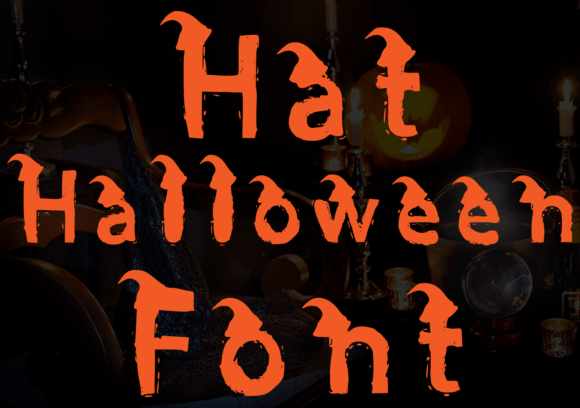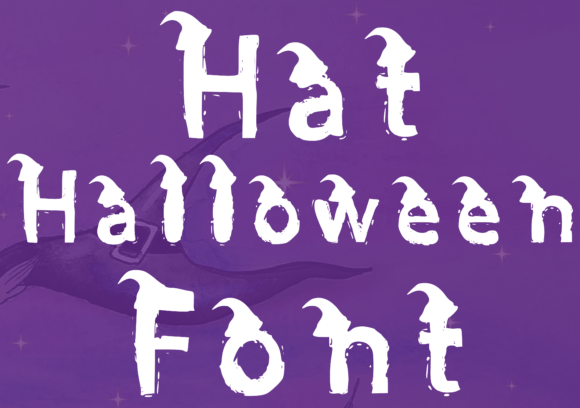
Introduction to Hat Halloween Font
As I was rummaging through my old Halloween decorations, I stumbled upon a faded witch hat that instantly sparked my creativity. I began to imagine how this whimsical hat could be reimagined as a font, and that’s exactly what inspired me to dive into the world of typography and create the Hat Halloween Font. This new font is a unique blend of Halloween spirit and high-quality design, making it a valuable addition to any designer’s toolkit.
Whether you’re working on a creative project that requires a festive touch or simply want to add some personality to your designs, the Hat Halloween Font is an excellent resource to have. Its transparent background and versatility make it perfect for a wide range of applications, from wedding invitations to Christmas cards. And the best part? It’s available for free download, making it an accessible design resource for designers of all levels.
With its cute yet sophisticated design, the Hat Halloween Font is sure to bring a smile to your face and elevate your designs to the next level. So why settle for a generic font when you can add a dash of Halloween magic to your work? Download the Hat Halloween Font today and get ready to unleash your creativity!
Key Features of Hat Halloween Font
- High-quality, hand-drawn design perfect for creative projects
- Perfect for Halloween-themed designs, parties, and events
Honest Review: Hat Halloween Font
I recently stumbled upon the Hat Halloween Font, and I must say, it’s a delightful addition to any creative project. As a designer, I appreciate high-quality fonts that can elevate the aesthetic of my designs. This font definitely delivers.
- ✨ The font is highly customizable, allowing you to adjust the colors and transparency to suit your design needs.
- ✨ The transparent background makes it easy to layer the font over other design elements without any visual clutter.
- ⚠️ The font is only suitable for Halloween-themed projects or designs that require a spooky, playful vibe. It may not be the best choice for more formal or professional projects.
- ⚠️ The font is a bit on the bold side, so it may not be suitable for designs that require a more subtle, understated look.
Overall, I’m impressed with the Hat Halloween Font. It’s a fun, creative resource that can add a touch of personality to your designs. Just be sure to use it in the right context, and you’ll be sure to get the desired effect.
Tips for Getting the Most Out of Hat Halloween Font
For the best results, use the Hat Halloween Font on a high-quality design resource with a transparent background. This will allow you to customize the font without any distractions. You can also use this font in a variety of creative projects, such as invitations, posters, and social media graphics.
The Hat Halloween Font is perfect for Halloween-themed designs, such as spooky invitations, haunted house decorations, and creepy costumes. You can also use this font in non-Halloween designs, such as party invitations, promotional materials, and gift tags.